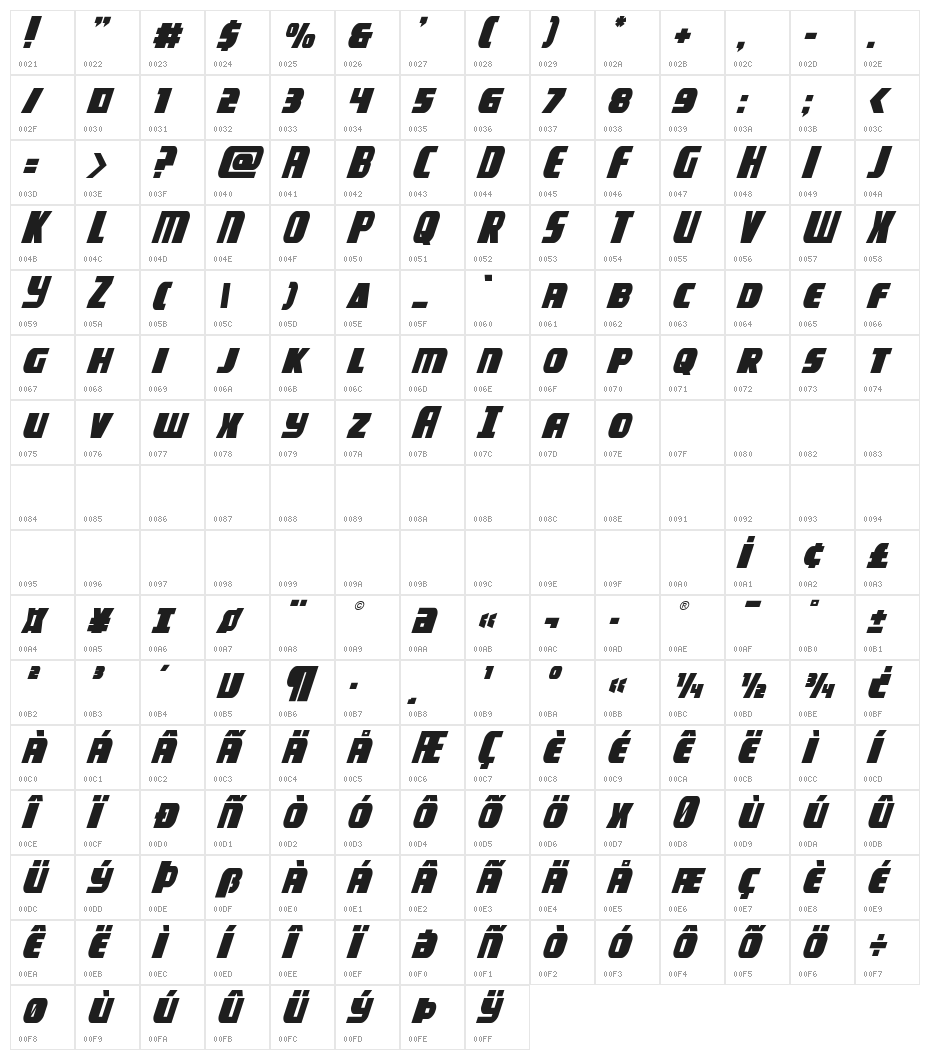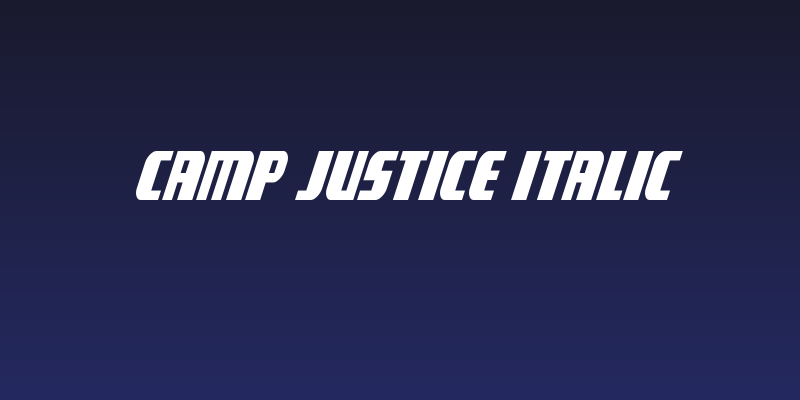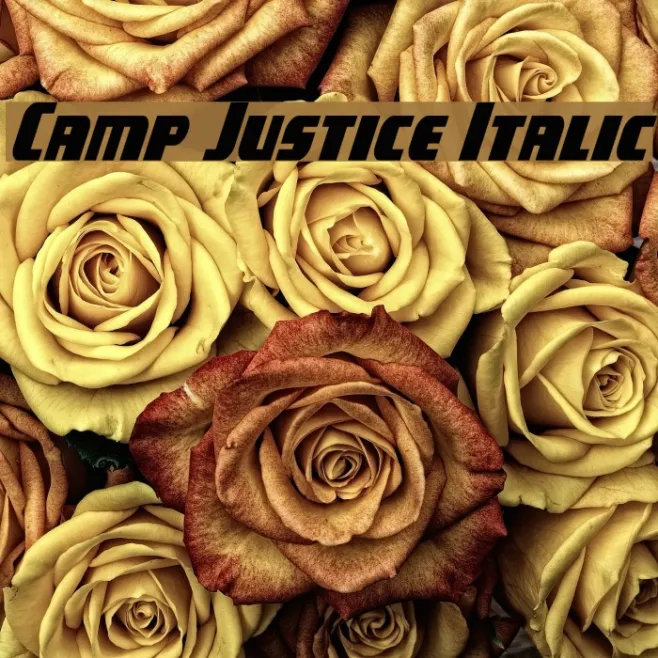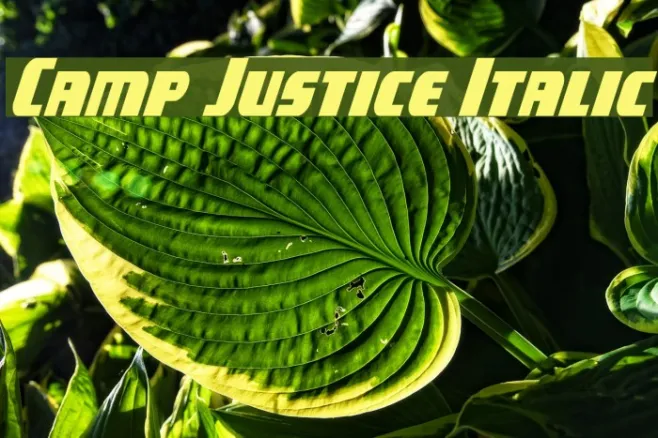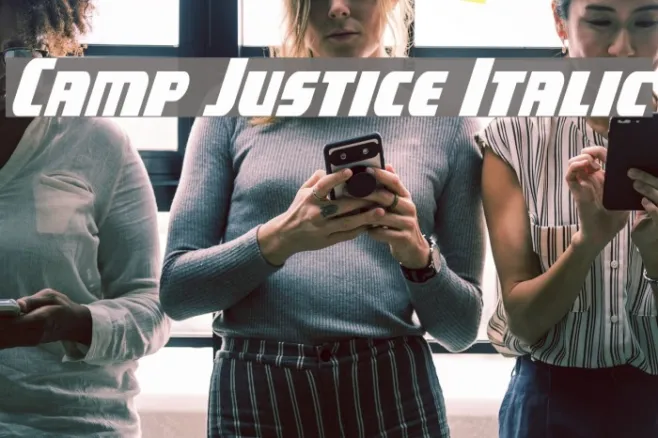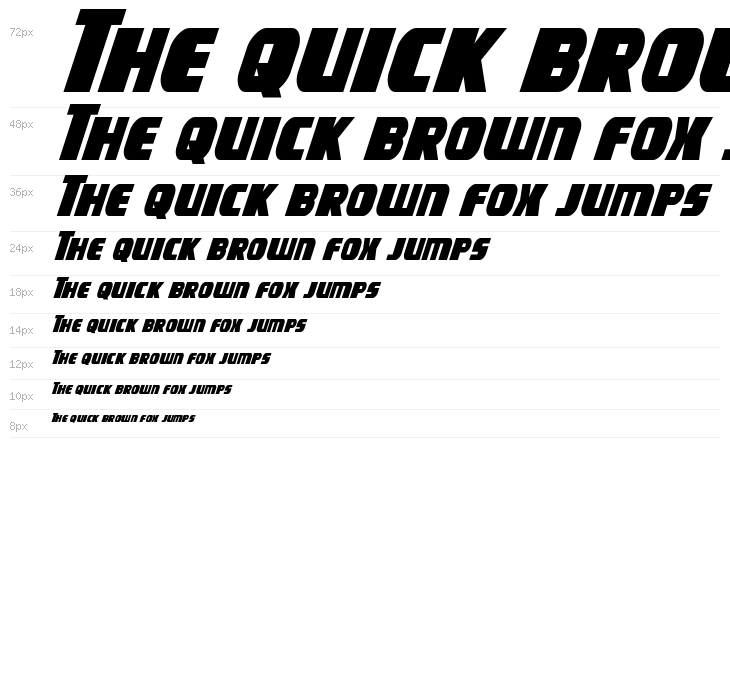
Camp Justice Italic Font
Camp Justice Italic Description
This font features a bold, italicized style with a strong presence, characterized by its thick strokes and angular edges. The letters are slanted, giving a sense of motion and dynamism. The uppercase and lowercase letters maintain a consistent weight, contributing to a cohesive look. The numbers and special characters follow the same bold and italicized design, ensuring uniformity across all characters. This font's design is both modern and assertive, making it suitable for impactful and attention-grabbing applications.